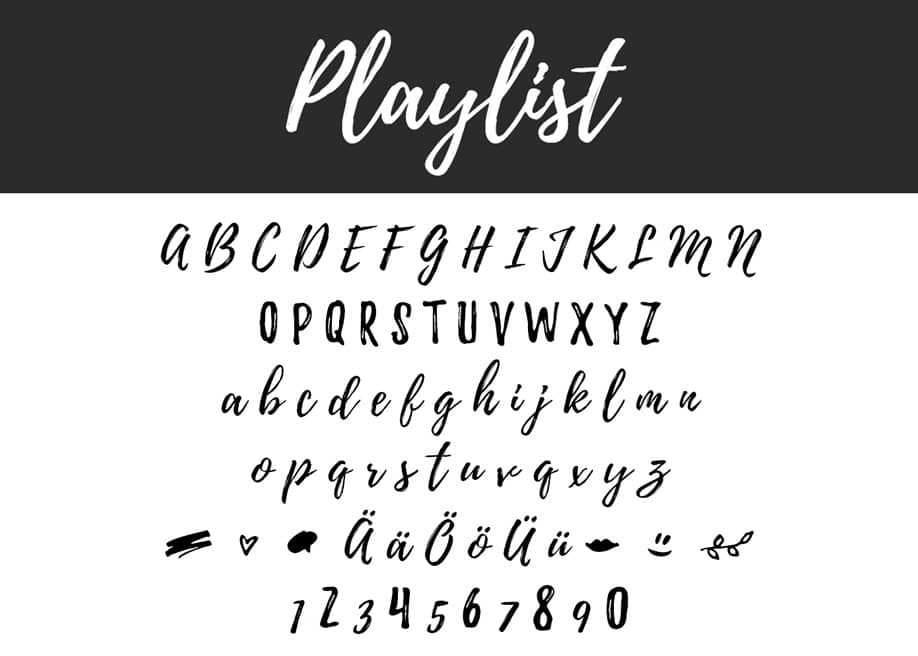
If you’re looking for a unique and versatile font to elevate your design projects, Playlist by Artimasa is an excellent choice. This hand-drawn font features three distinct styles: Script, Caps, and Ornament, that you can use individually or combine to create stunning designs that stand out.
About Playlist Font
Playlist Script font features flowing, brush-like strokes that lend a casual yet sophisticated feel to your designs. With its dry brush texture, this style is perfect for creating designs that evoke a sense of warmth and informality. On the other hand, the Caps style offers a bold and blocky typeface that’s perfect for headlines, titles, and attention-grabbing text. The Ornament style, with its decorative flourishes and embellishments, adds a unique touch to your designs, making them stand out from the rest.
Use of Playlist Script Font
If you’re designing a logo, creating a poster, or crafting social media graphics, Playlist offers a range of options to suit your needs. With its versatile styles, you can mix and match them to create a unique look for your design projects.
For instance, you can use the Script style for headlines, body text, and call-to-action buttons to add warmth and personality to your designs. The Caps style, on the other hand, can be used for headlines, titles, and subheadings to make them stand out and grab attention. And if you want, you can use the Ornament style to add a unique touch to your decorative flourishes and embellishments.
Font Pairing with Playlist Script Font
If you’re wondering what fonts to pair with Playlist Script font, the answer is that it depends on your design needs. However, some popular font pairings include pairing Playlist Script font with serif fonts like Times New Roman or Georgia for a classic and timeless look. You can also pair it with sans-serif fonts like Arial or Helvetica for a modern and clean look.